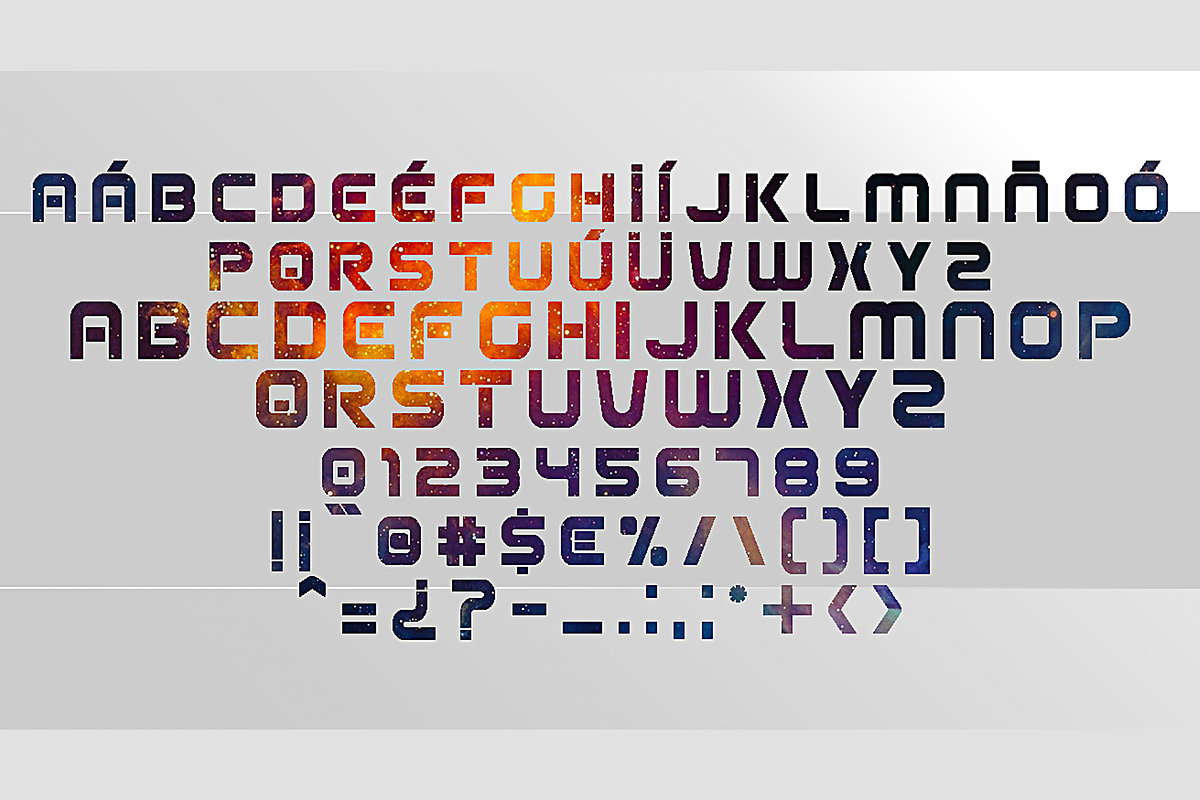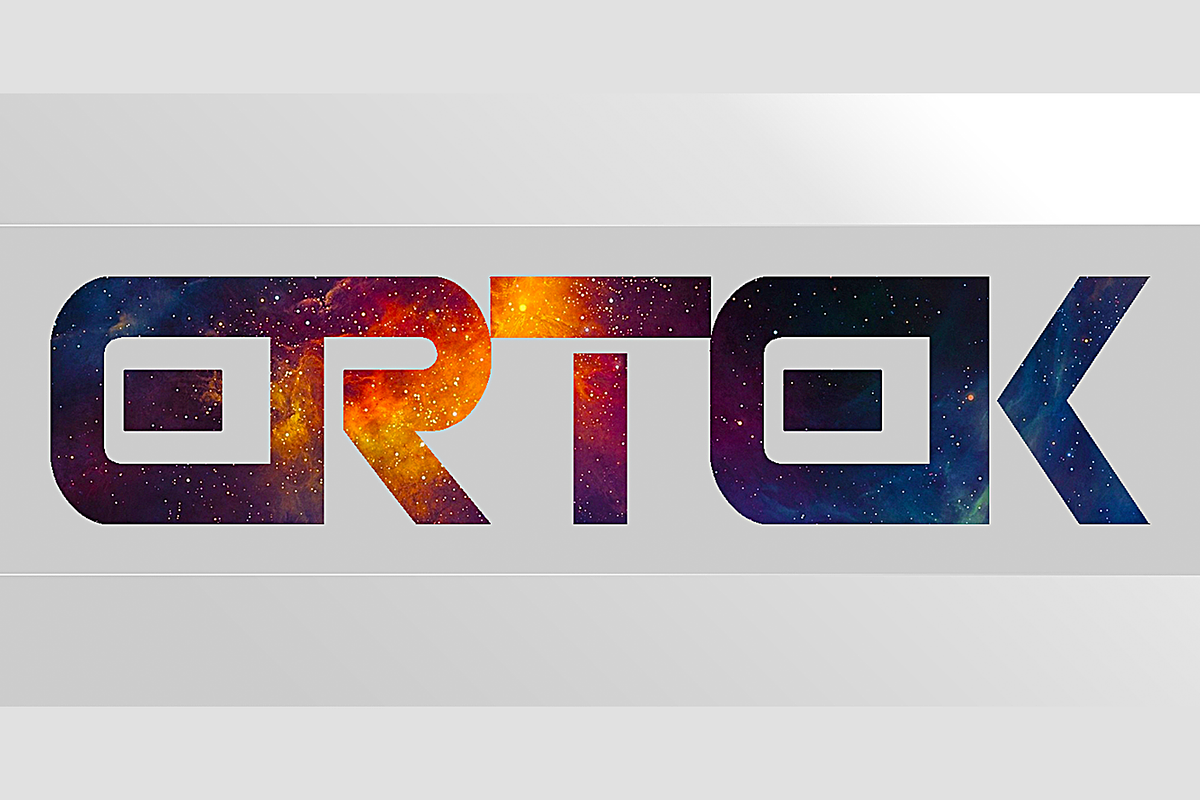
Ertek
Ertek by Qbotype Fonts is a font selected for branding, posters, packaging, typography.
- Ertek: This typeface contains 95 characters, uppercase, lowercase, numbers and symbols.
Why Ertek is worth a look
Ertek by Qbotype Fonts fits naturally into Branding, posters, packaging, typography.